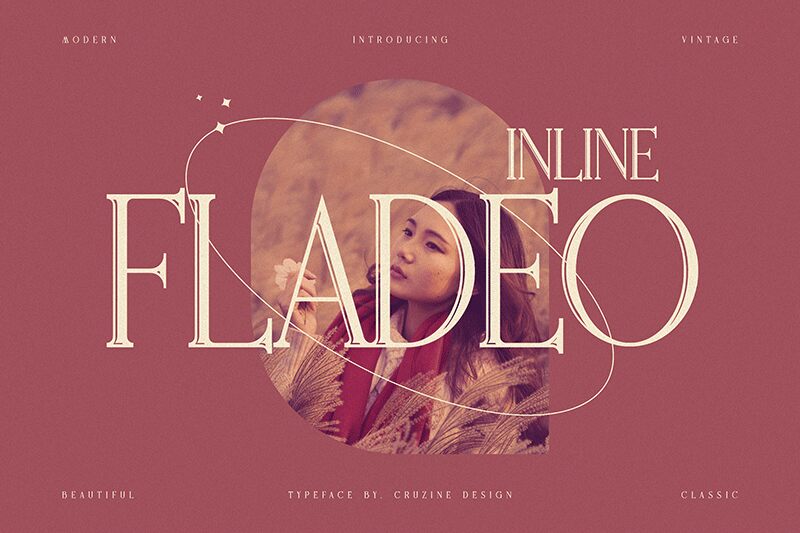
Introducing Fladeo Inline Grunge, the perfect display font for those seeking a retro aesthetic. Designed by Cruzine, its light weight and condensed width make it ideal for stylish headlines and attention-grabbing graphics. The grungy texture adds an edgy touch to any design, making it suitable for music posters, urban fashion branding or vintage-themed advertisements. Embrace the creative possibilities of Fladeo Inline Grunge and give your projects a bold retro twist!
Enjoy this elegant, retro & decorative serif font - this is inline version. Please check more FREE and premium fonts on deeezy.com and dealjumbo.com ;) Thanks for your support
Fladeo inline grunge